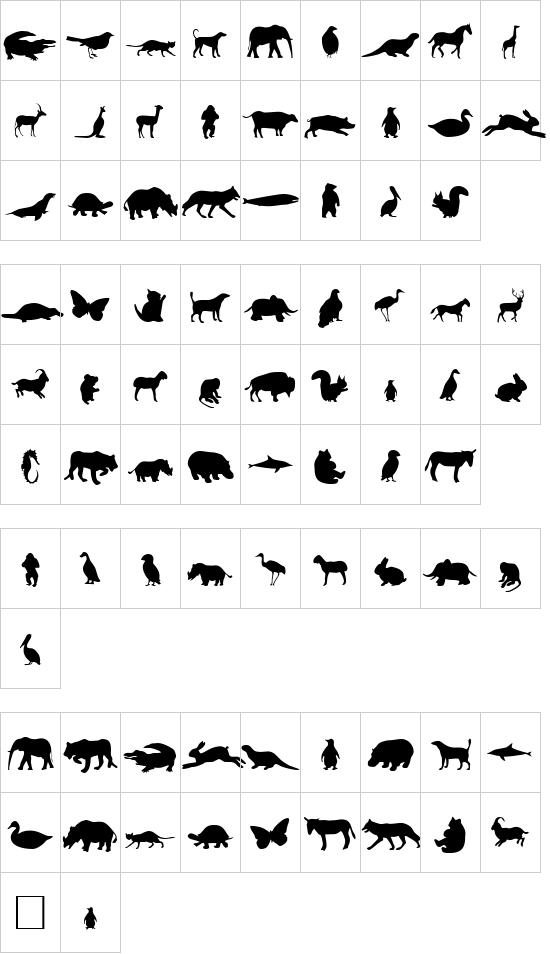
Animals
About Animals
Animals is a dingbat face filled with charming animal illustrations in place of standard letters. Each key reveals a different creature rather than a character, ranging from familiar pets to wilder beasts, giving you a varied set of friendly animal drawings spread right across the keyboard for easy picking.